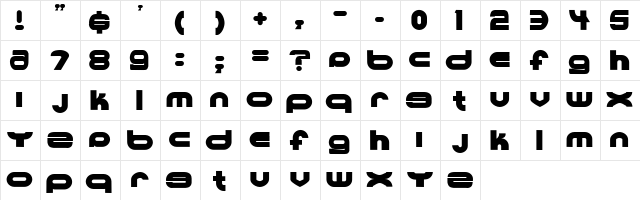
Ultraworld black
Design Context for Ultraworld Typeface
Ultraworld is a composed and adaptable typeface that performs quietly and consistently across a wide range of design contexts.